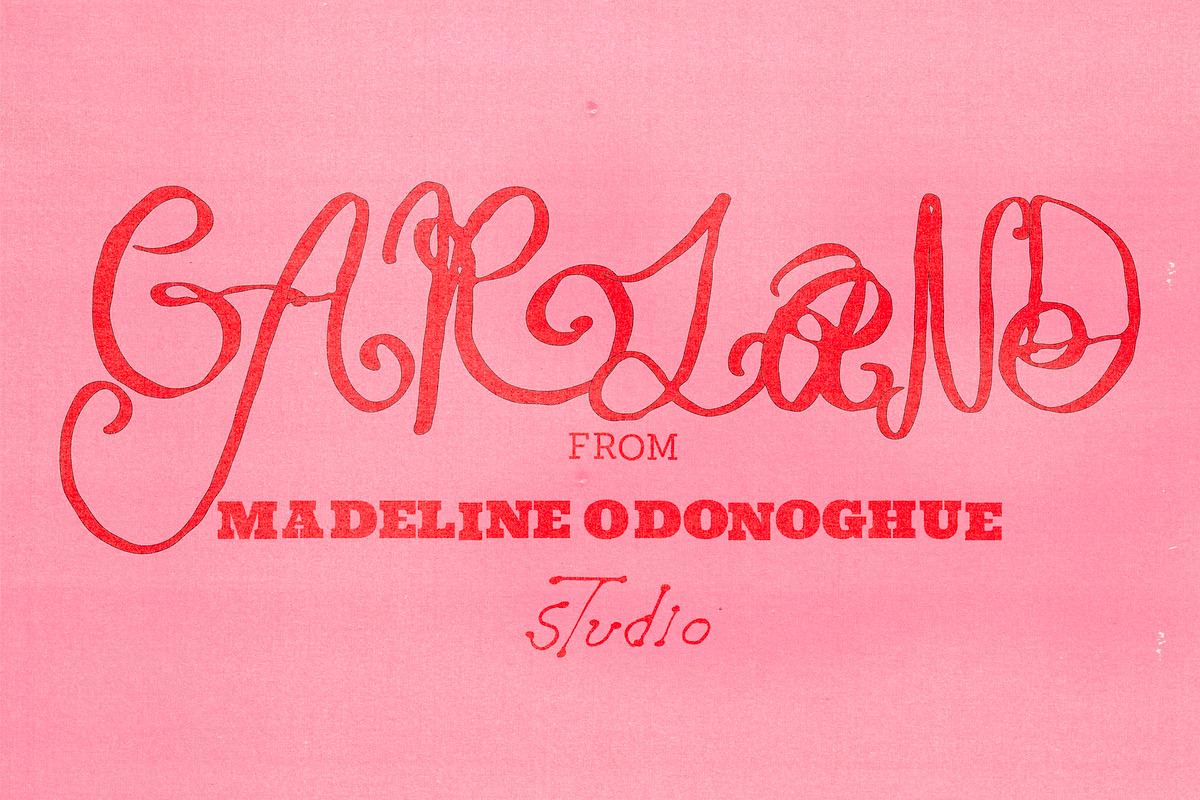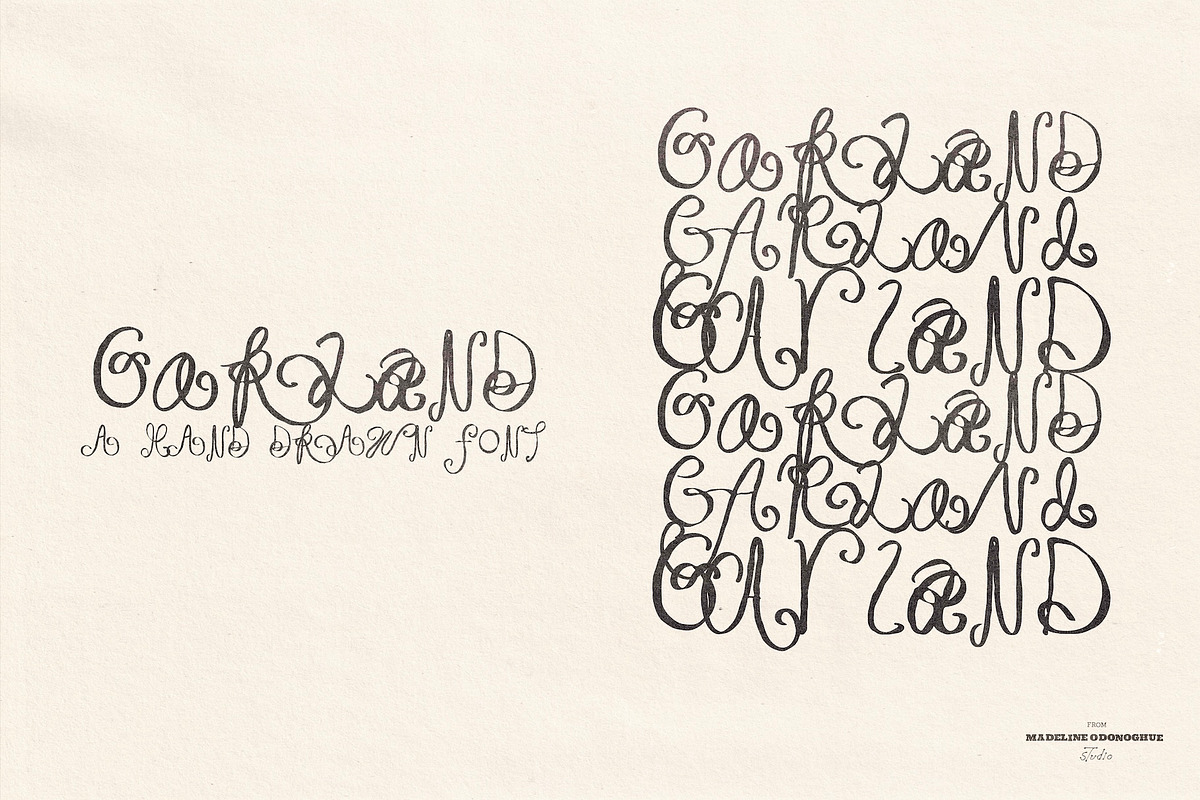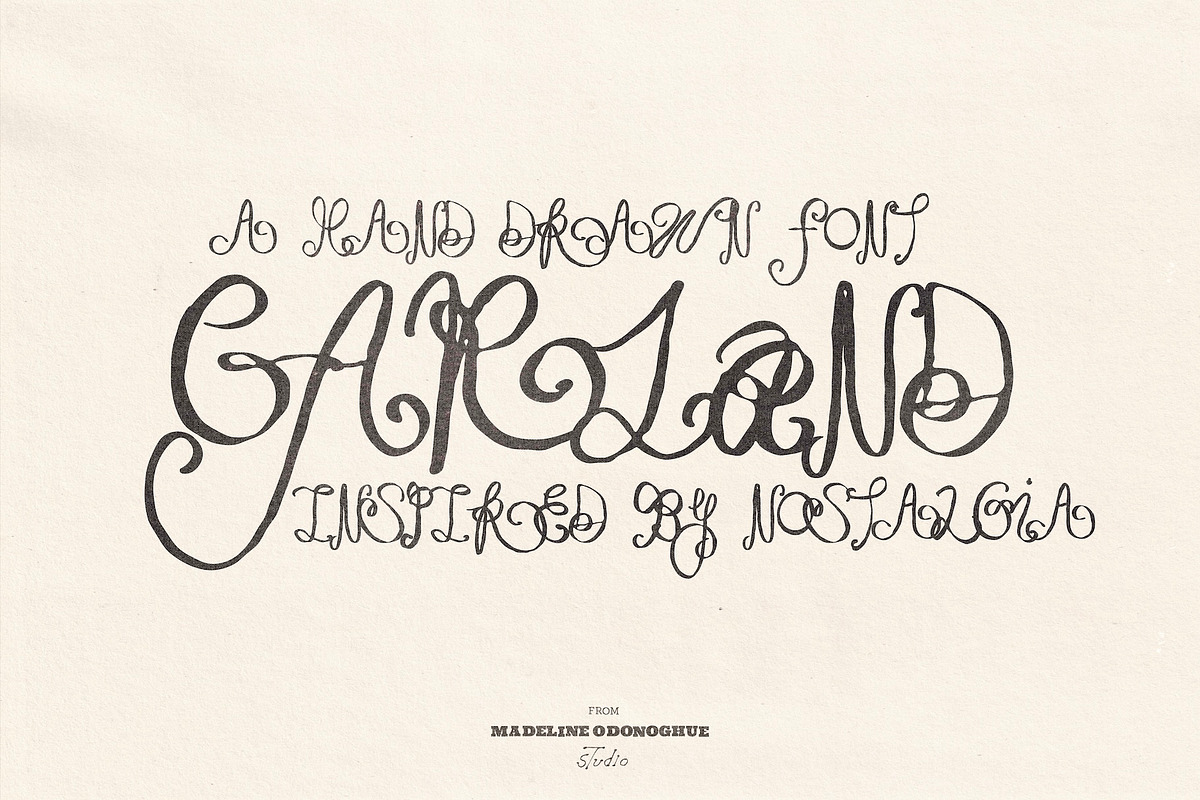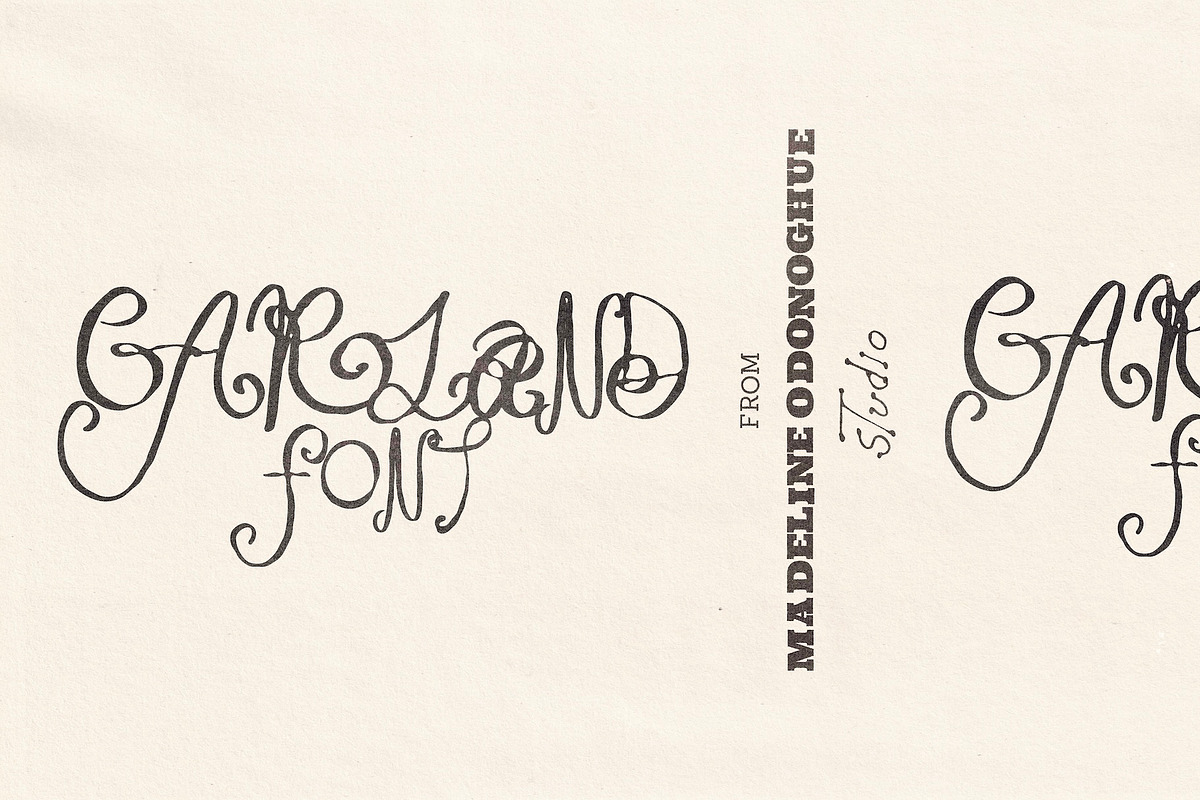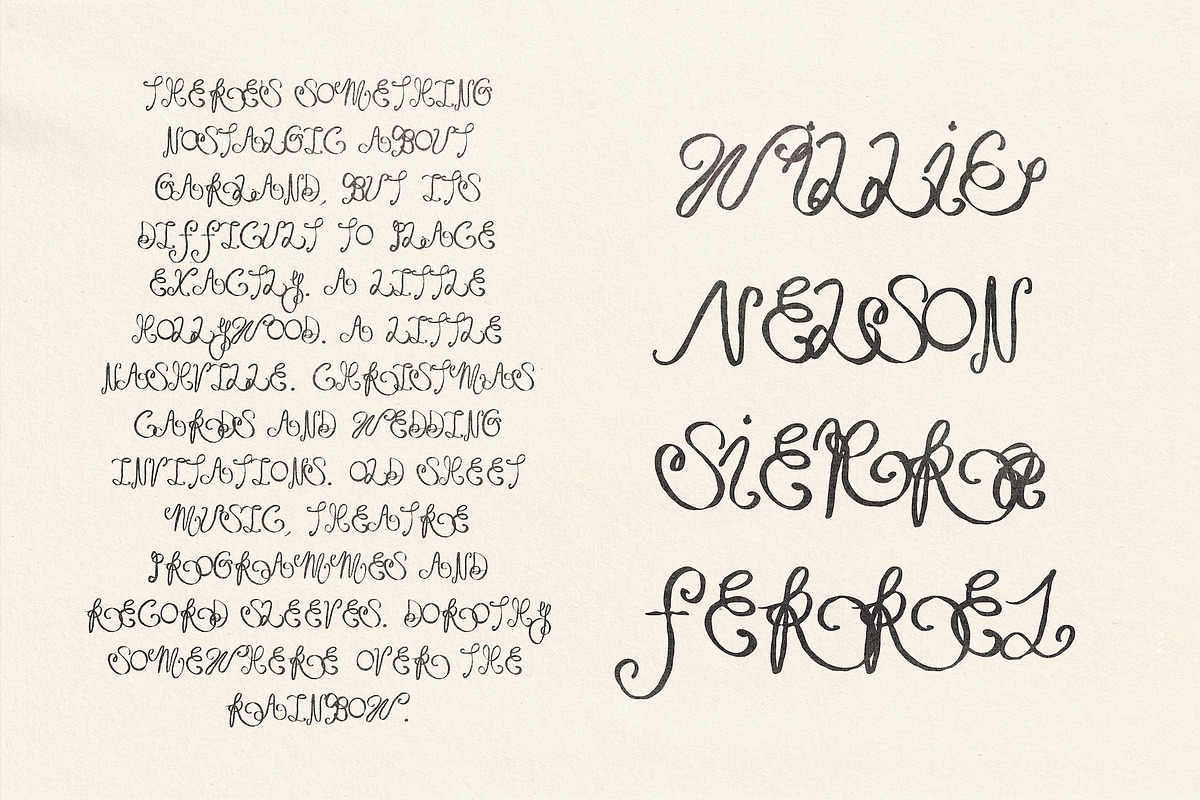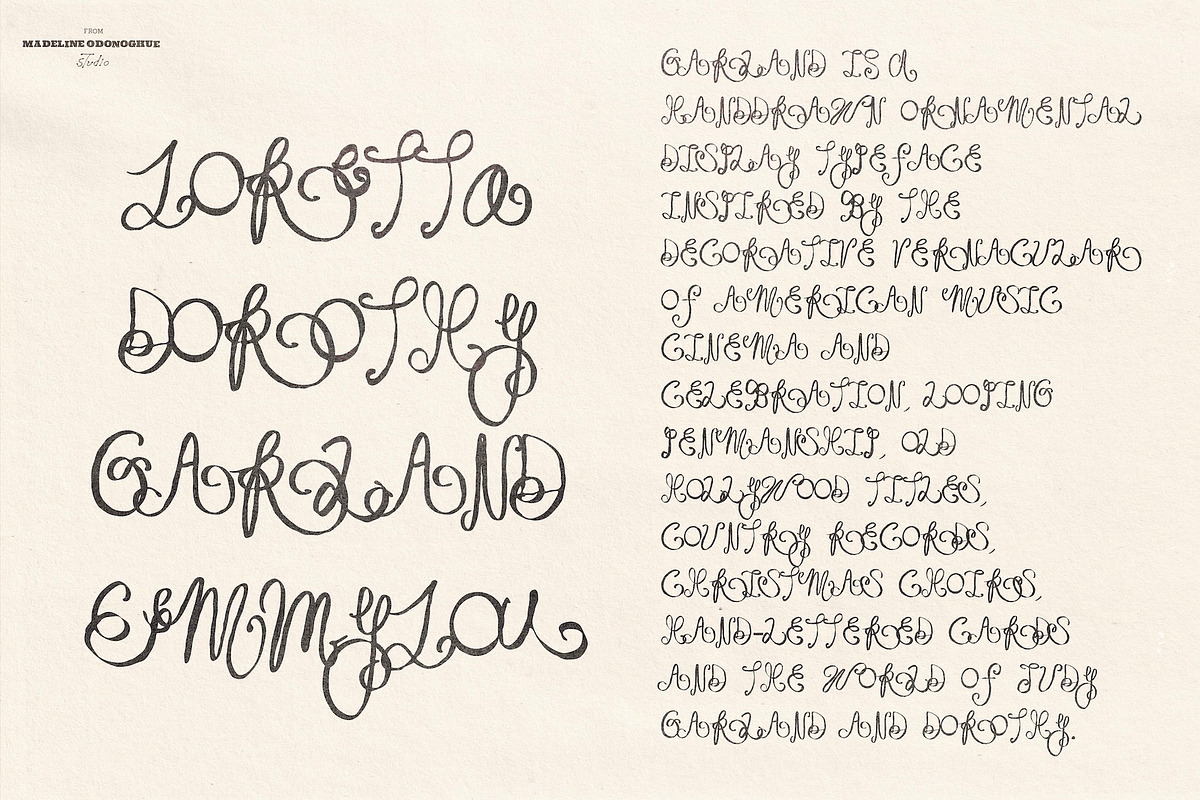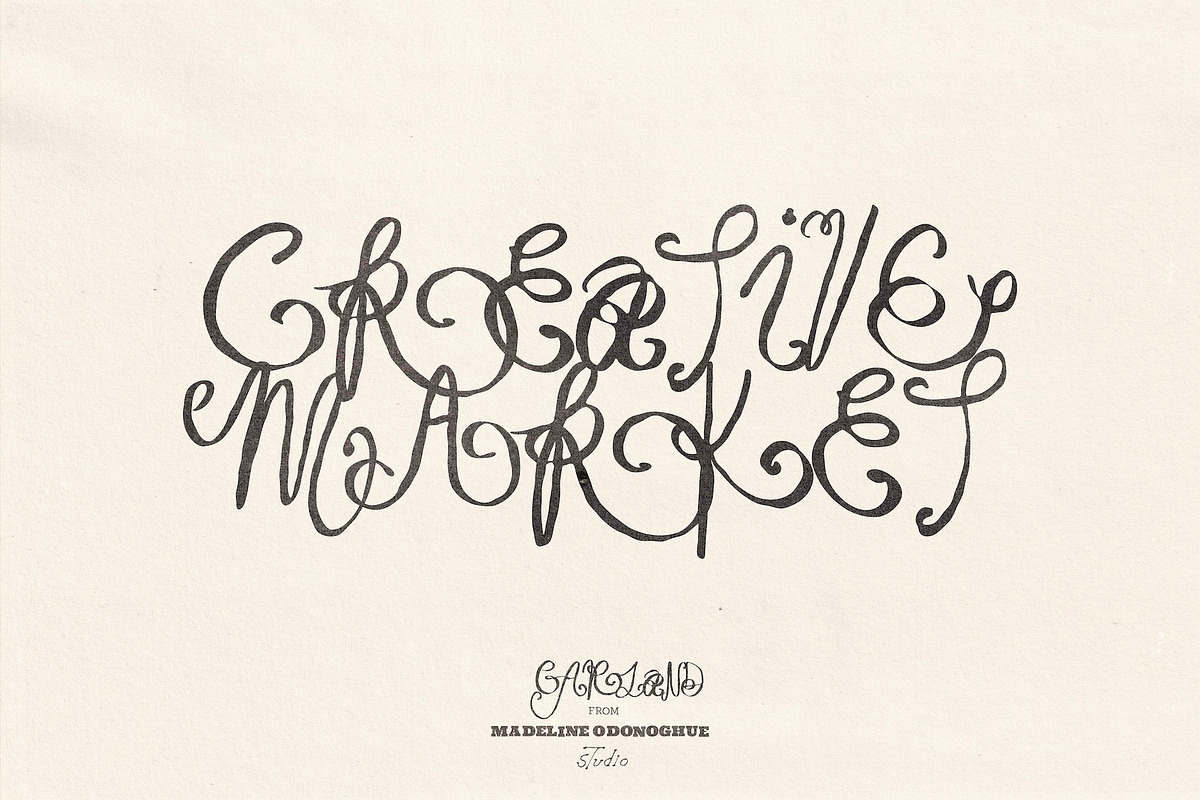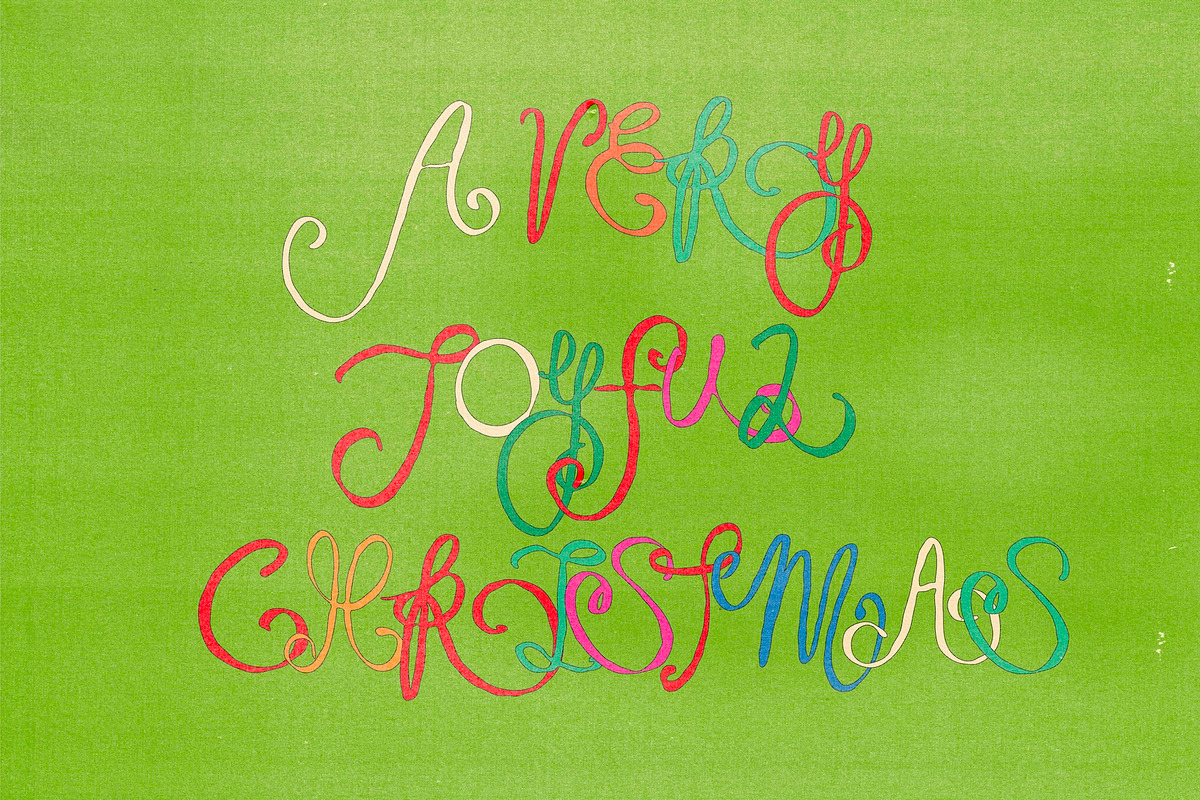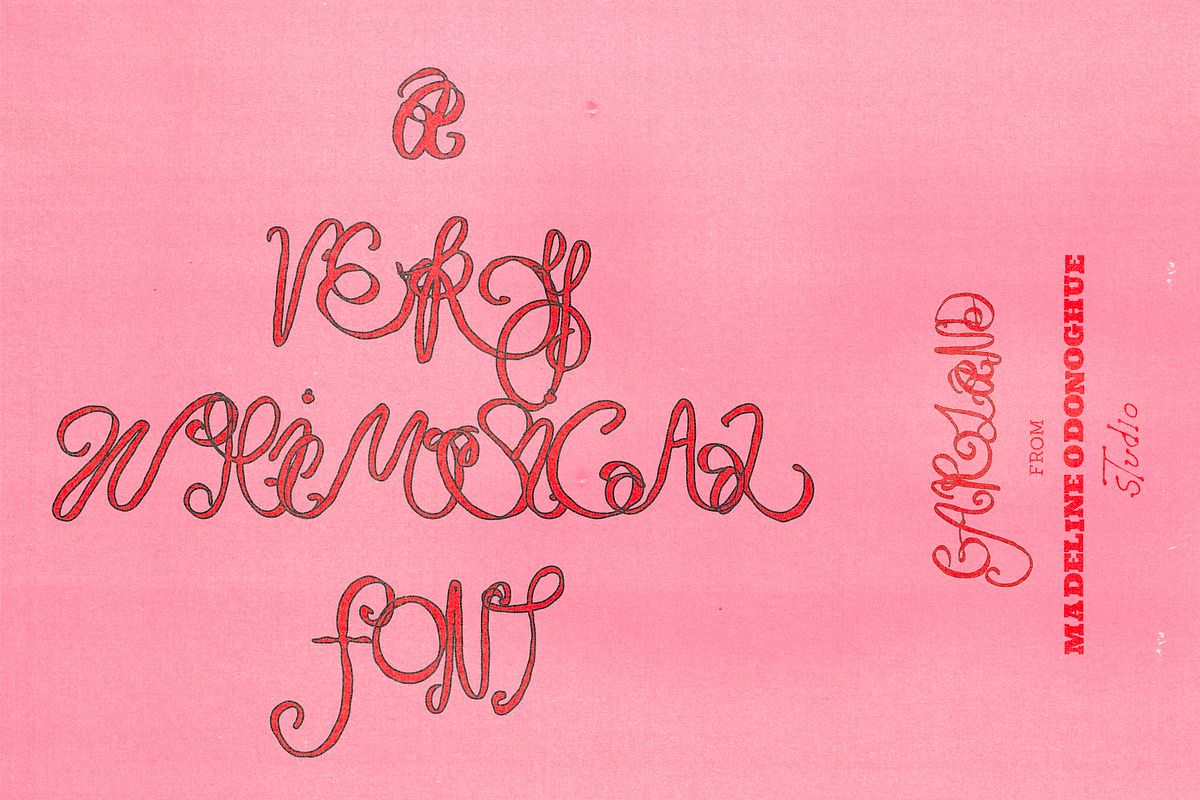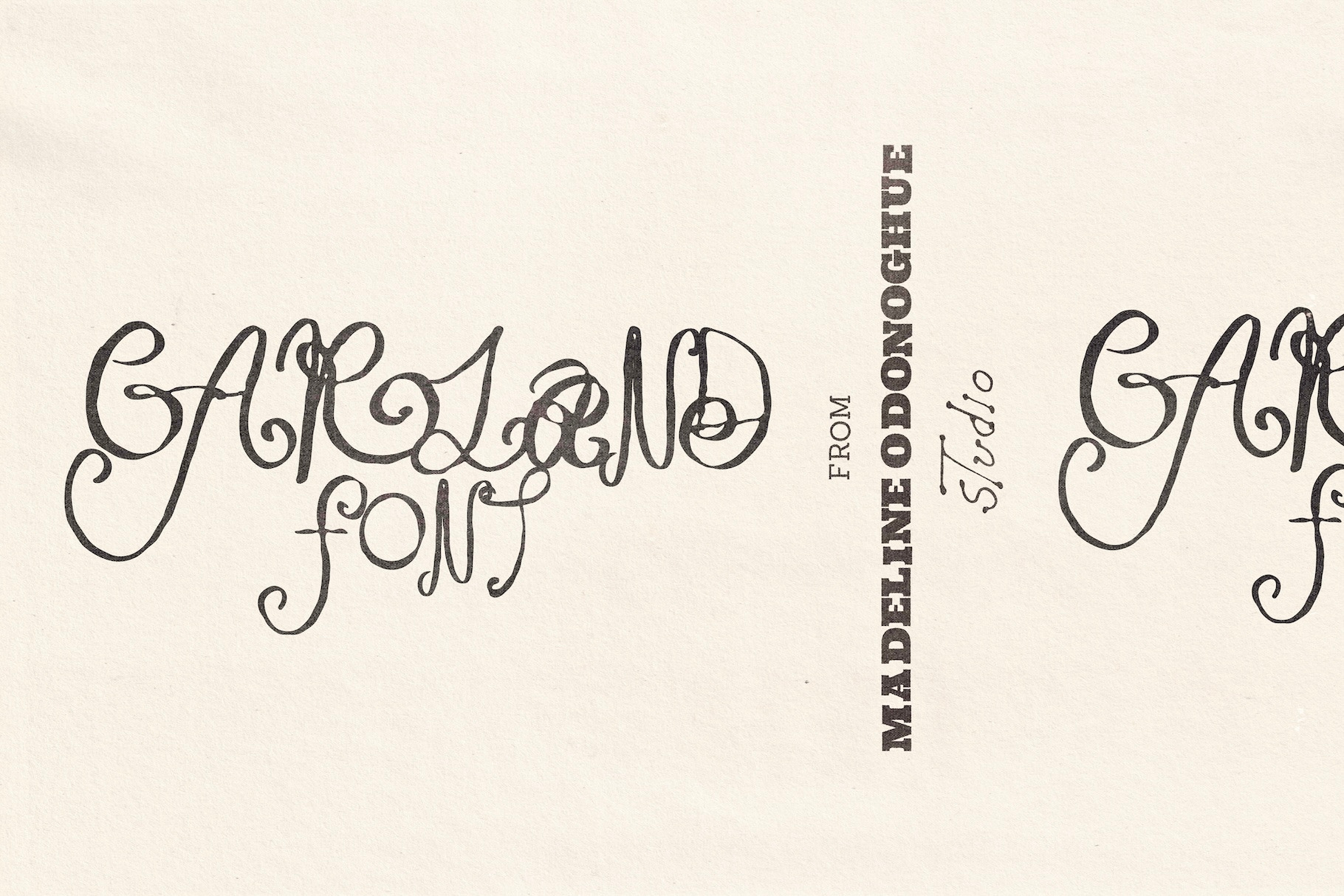
Garland Hand Drawn Ornamental Font
Garland is a hand-drawn ornamental display typeface inspired by the decorative world of American music, cinema and celebration — looping penmanship, old Hollywood titles, country records, Christmas choirs, hand-lettered cards and the theatrical worlds of Judy Garland and Dorothy.
Made entirely by hand, Garland is expressive, irregular and intentionally imperfect. Letters twist, curl and wander; strokes loop back into themselves; forms drape like ribbons; and some characters become almost illustrative — part letter, part flourish.
There’s something nostalgic about Garland, but it’s difficult to place exactly. A little Hollywood, a little Nashville. Old sheet music, theatre programmes, record sleeves, Christmas cards and wedding invitations. Dorothy somewhere over the rainbow.
Rather than recreating one particular historical lettering style, Garland takes its cues from American ornamental and vernacular lettering, allowing things to get a little stranger. Narrow characters sit alongside wide looping forms, line weights change, and unexpected details appear throughout.
Each letter also includes a hand-drawn alternate, giving you more freedom when building words and titles. Mix the characters to change the rhythm and personality of your lettering, or embrace the overlapping loops and flourishes. Garland isn't intended to behave like a polished digital script — its uneven weights, irregular forms and imperfections are an intentional part of its hand-drawn character.
Made for words that deserve a little ceremony.
Uppercase A–Z (some alternates for creative play)
Numbers 0–9
No lowercase
No punctuation
Garland is an all-caps display typeface, created for expressive headlines, titles, logos and short pieces of lettering rather than long passages of text.
The irregular line weights, textured edges, overlaps and hand-drawn imperfections are intentional features of the typeface and will remain when the font is used. Garland is designed to retain the character of lettering drawn by hand rather than the uniformity of a traditional digital script.